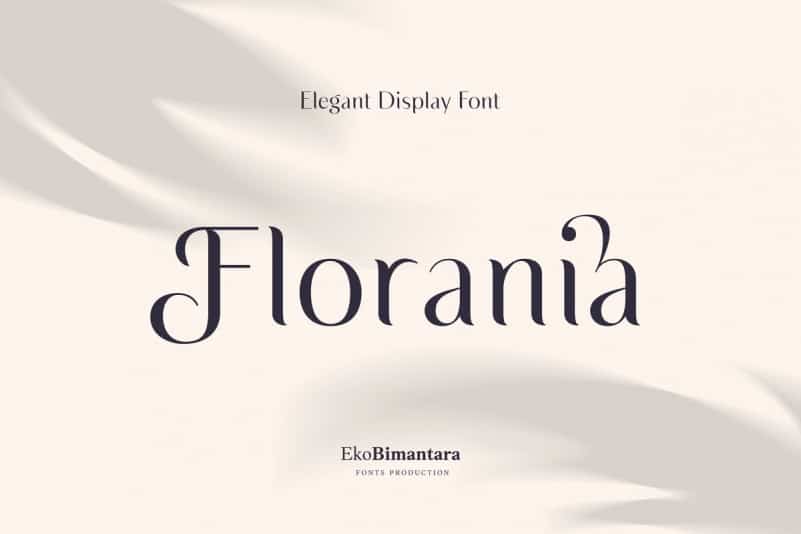
Florania Font
Florania Sans Serif Font is a sans serif font looks stylish, elegant and sophisticated will perfect for your latest project. It have lot of alternates and ligature choices with standard latin language coverage. Florania is fit for display, title, large sizes, and short text. Also fit for broad design project such as brand, web, logo, and others.